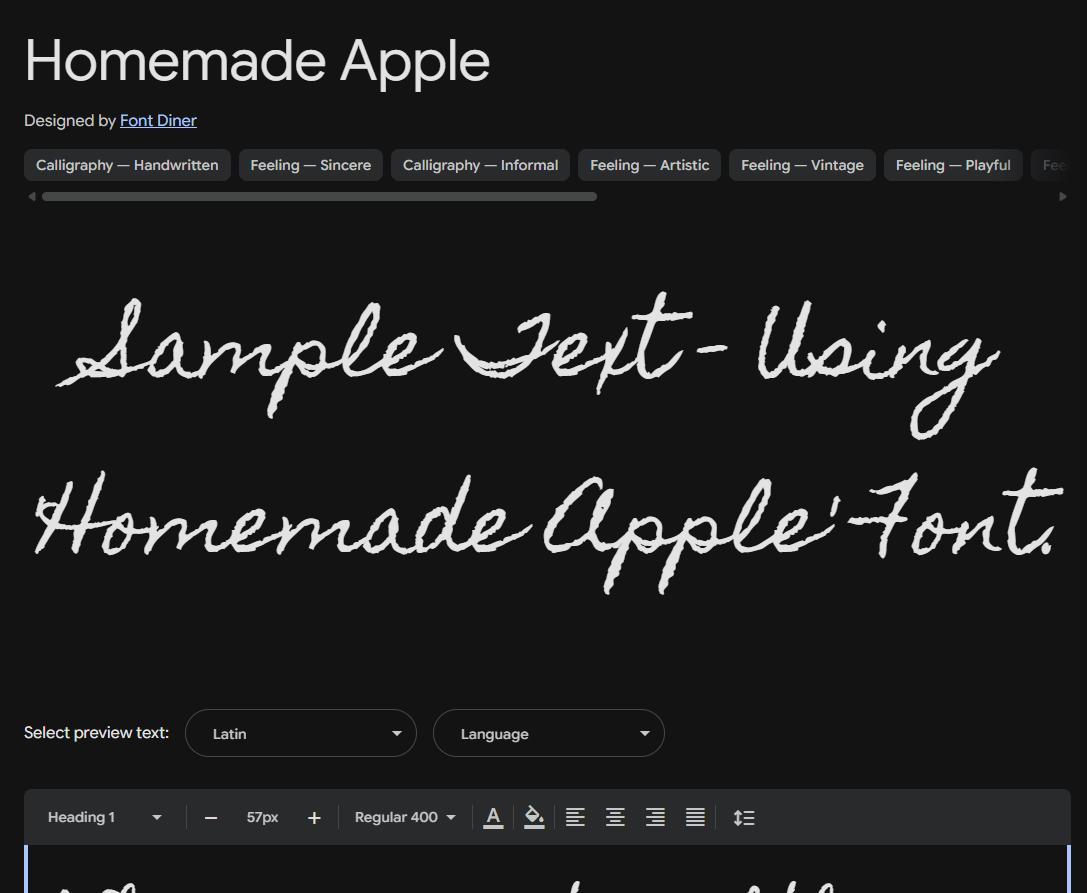
The Homemade Apple font family, a singular-style cursive script meticulously crafted by the retro-inspired foundry Font Diner, serves as a quintessential bridge between traditional analog penmanship and modern digital typography. Characterized by its authentic, monolinear stroke weights and an organic, slightly irregular baseline, this typeface leverages a consistent x-height to maintain legibility while its fluid ascenders and descenders evoke the spontaneous rhythm of handwritten notes. As a web-optimized asset frequently utilized via the Google Fonts API, it offers a distinct aesthetic departure from rigid geometric sans-serifs, utilizing subtle kerning pairs and natural slant axes to ensure that its connected glyphs replicate the kinetic flow of ink on paper within a responsive CSS environment.
The Homemade Apple font family, a distinctively monolinear script designed by Font Diner, bridges the gap between digital precision and organic artistry by emulating the sincere, handwritten nuances of a felt-tip pen. Its technical construction features an irregular baseline and loose kerning that cultivate an informal calligraphy style, evoking a playful and childlike energy that feels both cute and inherently happy. Through its rugged, non-uniform glyphs and vintage texture, the typeface projects a loud, expressive personality that remains grounded in an artistic aesthetic, successfully reimagining traditional formal calligraphy as an accessible, sincere medium. By utilizing varied stroke modulations that mimic natural human pressure, Homemade Apple transforms standard layouts into vibrant, nostalgic compositions, proving that a typeface can simultaneously be informal in its execution yet authoritative in its delivery of a sincere and rugged visual narrative.
Homemade Apple, characterized by its informal script aesthetic and spontaneous stroke modulation, is fundamentally ill-suited for high-stakes digital interfaces and corporate regulatory environments where accessibility and structural integrity are non-negotiable. Because the typeface exhibits significant variance in x-height and lacks the baseline stability required for rapid information processing, it fails to meet the stringent legibility criteria established by WCAG 2.1 standards for utility-driven sectors such as medical telemetry or financial asset management. Furthermore, the font's organic, hand-drawn terminals and inconsistent kerning pairs introduce semiotic friction in legal documentation and luxury branding, where the absence of a discernible typographic hierarchy and optical sizing compromises the authoritative gravitas necessary for consumer trust and long-form readability.
Homemade Apple pairs exceptionally well with rustic, vintage, and organic design aesthetics that emphasize a personal, handcrafted feel. Its casual script morphology integrates seamlessly with slab serifs to balance the organic x-height fluctuations against rigid structural grids.
This font is generally not recommended for extended body text because its cursive connections and irregular letterforms can fatigue the reader's eye. Quantitative legibility studies indicate that script typefaces with high stroke modulation significantly increase cognitive load when used in dense blocks of copy.
In branding, Homemade Apple excels as a primary logotype for boutique brands seeking an approachable and authentic visual identity. The font's glyph variability provides a distinct advantage in vector rendering, allowing for a bespoke "human-ink" appearance that mimics natural pen pressure.
Optimal pairings include clean sans-serifs like Montserrat or Open Sans to provide a necessary structural contrast to the font's fluid lines. Utilizing a geometric typeface ensures that the hierarchy remains clear while the Homemade Apple's kerning offsets are grounded by stable typographic anchors.
At smaller point sizes, the delicate strokes and loops of Homemade Apple tend to lose definition and may become difficult to decipher. Sub-pixel rendering issues often occur with thin-stroke scripts at low resolutions, leading to significant aliasing artifacts that obscure character recognition.
While charming for decorative elements, this font is rarely suitable for core UI components like navigation menus or functional buttons. User experience metrics show that script fonts lack the accessibility requirements for WCAG compliance regarding rapid scannability and contrast ratios in mobile environments.
Homemade Apple is an excellent choice for wedding stationery, offering an informal yet elegant vibe perfect for invitations and place cards. Its fluid ligature implementation recreates the aesthetic of traditional copperplate calligraphy without the prohibitive costs associated with custom hand-lettering.
Earthy tones, muted pastels, and chalkboard-style white-on-dark palettes best accentuate the font's natural handwritten texture. High-contrast monochromatic schemes maximize the visibility of the font's varying line weights, emphasizing the simulated ink bleed and pressure points.
For corporate environments, use should be limited to accent titles or pull quotes to avoid compromising the professional tone of the delivery. In a technical context, utilizing script fonts as "hero text" can distract from data visualization due to the lack of a standardized baseline alignment.
This font is highly effective for farm-to-table or bistro menus where a personalized and artisanal atmosphere is desired. Its low-stress angle and casual character spacing effectively signal "freshness" to consumers, a psychological trigger often leveraged in sensory marketing design.